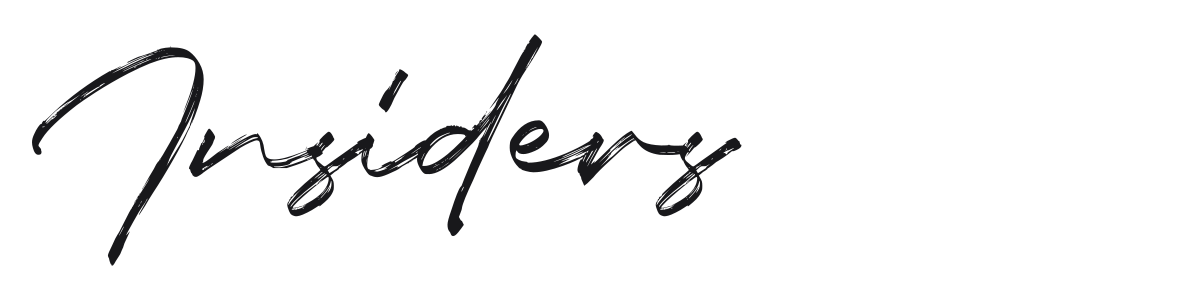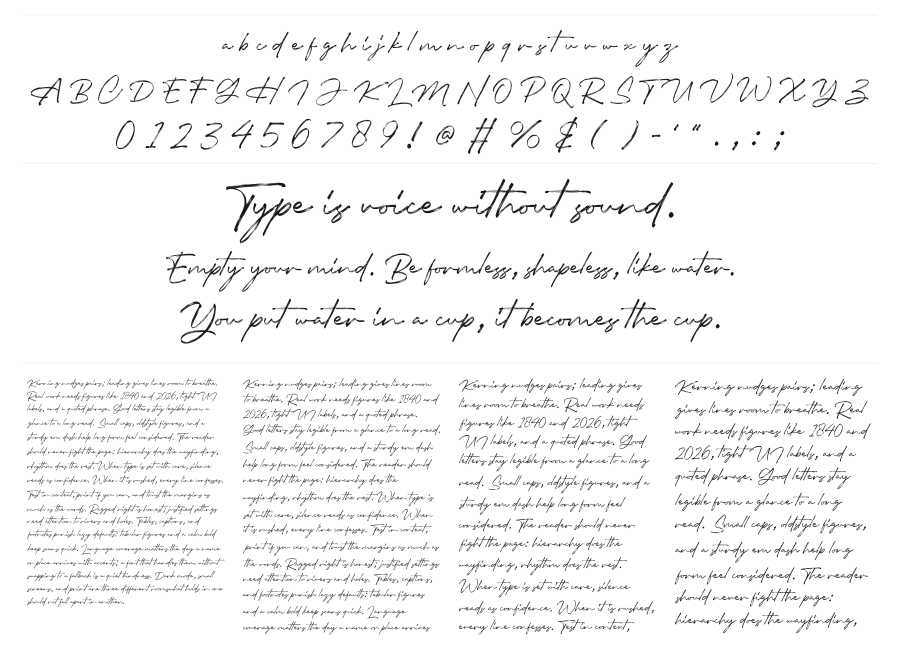
Insiders
Insiders is a casual brush script from Arterfak Project with the loose, energetic feel of a quickly dashed signature. Thick swells and wispy hairline connectors create strong stroke contrast, while rough ink texture and a wandering baseline reinforce the handcrafted quality. It reads as confident and spontaneous at headline and logo sizes.